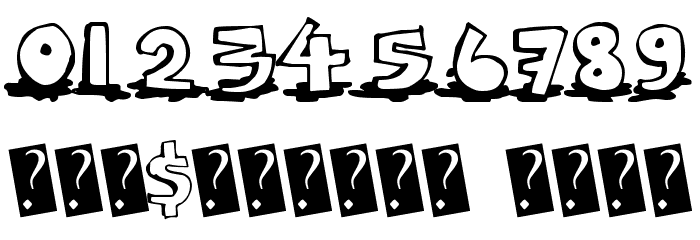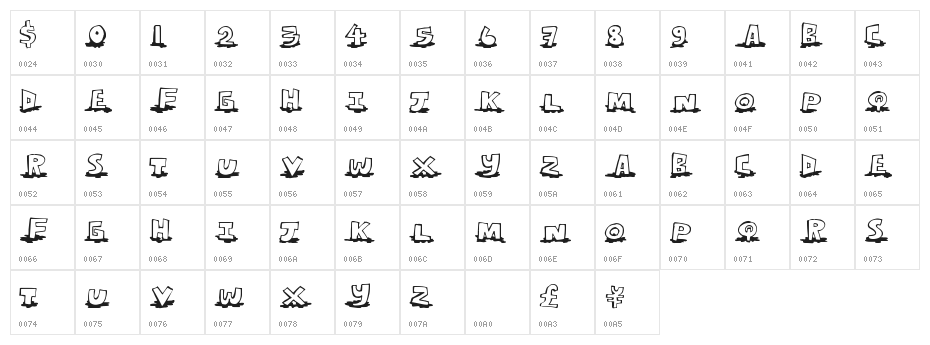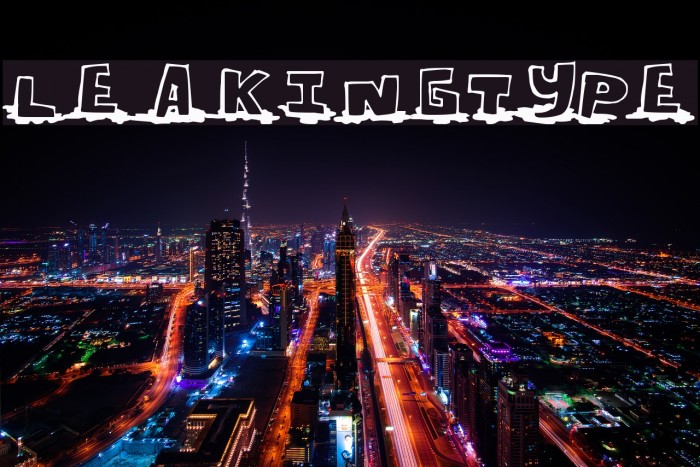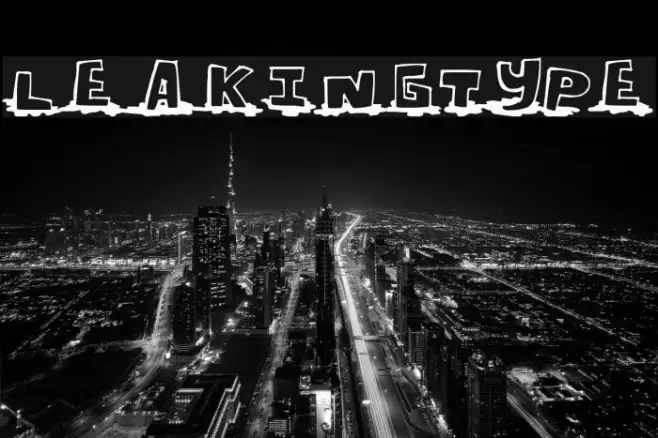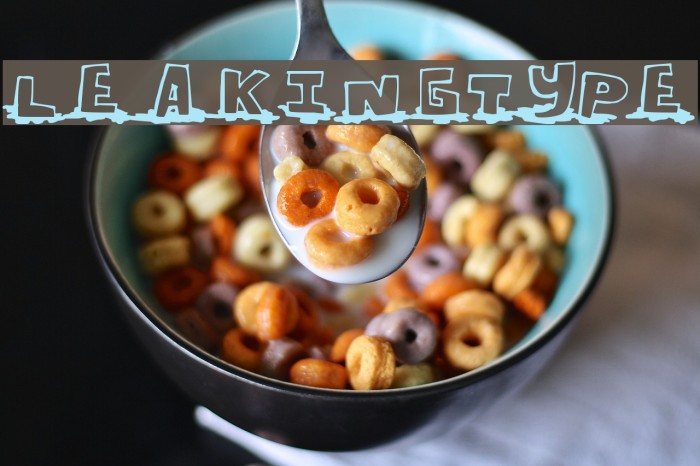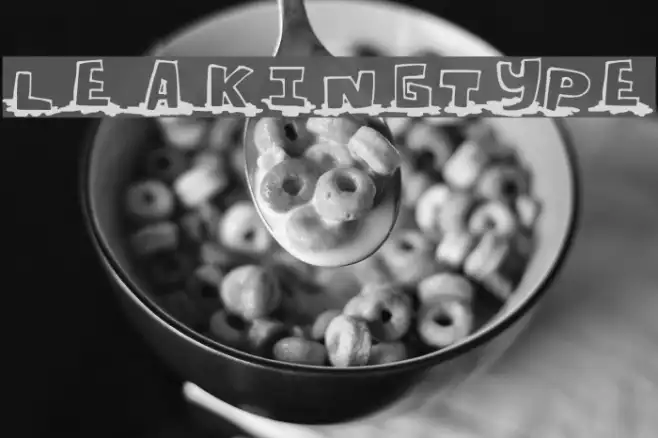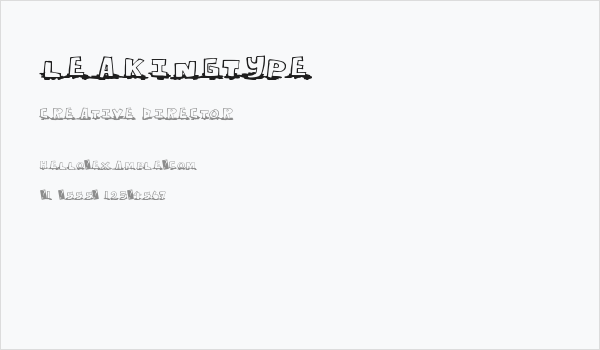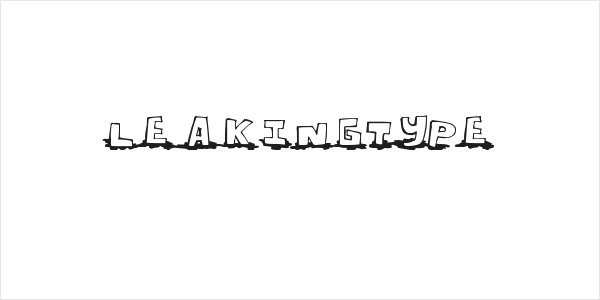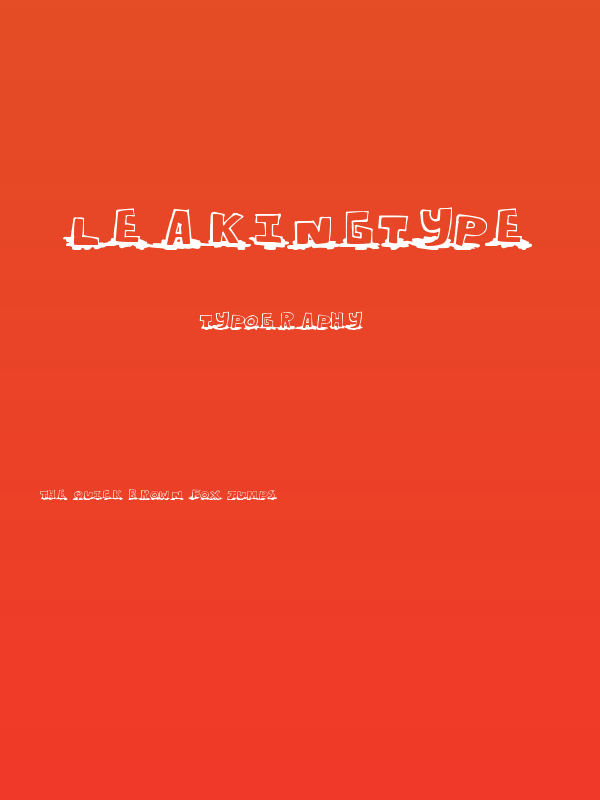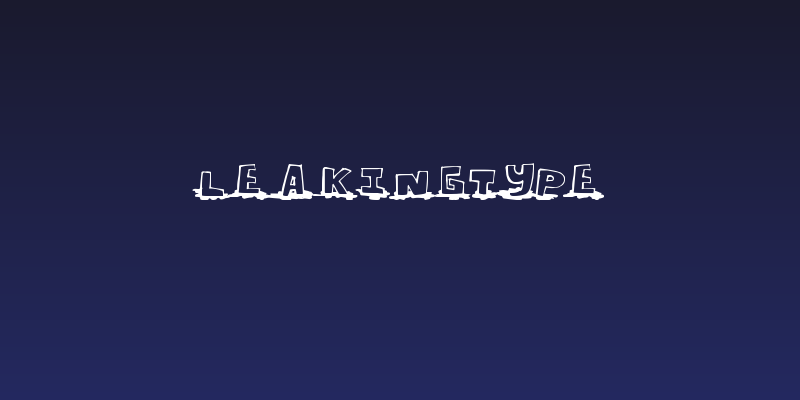
LeakingType Font
LeakingType Description
This playful and bold font features a unique dripping effect at the bottom of each character, giving it a dynamic and slightly chaotic appearance. The uppercase and lowercase letters maintain a consistent style, with thick strokes and a cartoonish vibe. The numbers and special characters follow the same design, ensuring a cohesive look throughout. The font's exaggerated, irregular shapes and bold outlines make it stand out, perfect for grabbing attention. Its distinctive style is reminiscent of graffiti or street art, making it ideal for creative and unconventional projects.
| Proposed Projects | Ideal for comic books, street art designs, children's book covers, and playful branding. |